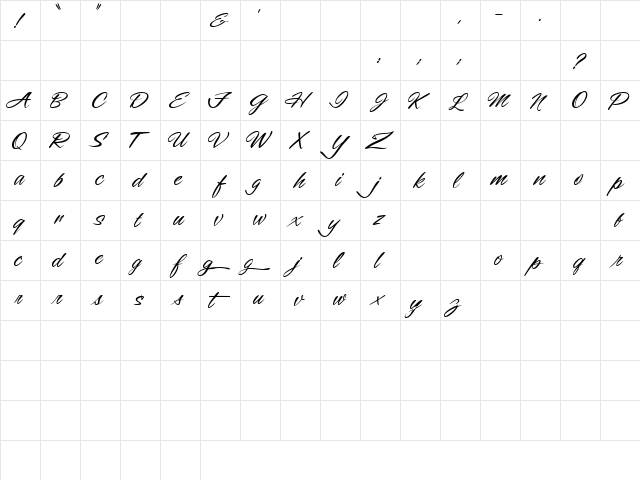
1 Smoothy DNA Regular
Design Context for 1 Smoothy DNA Typeface
1 Smoothy DNA is a composed and adaptable typeface that performs quietly and consistently across a wide range of design contexts.